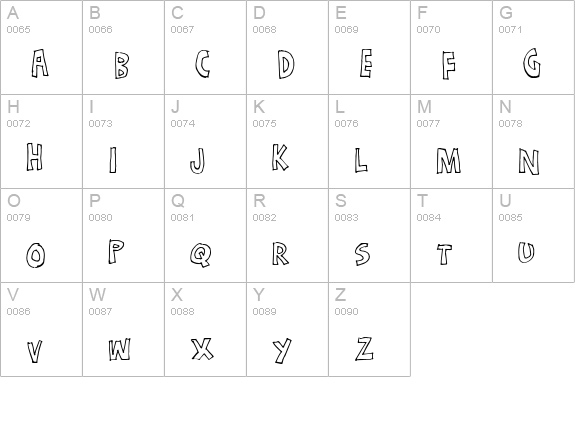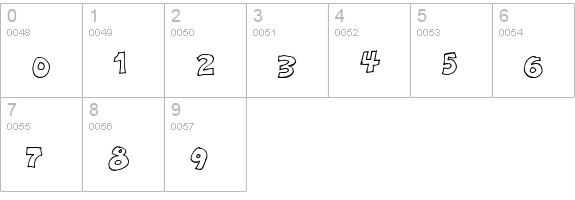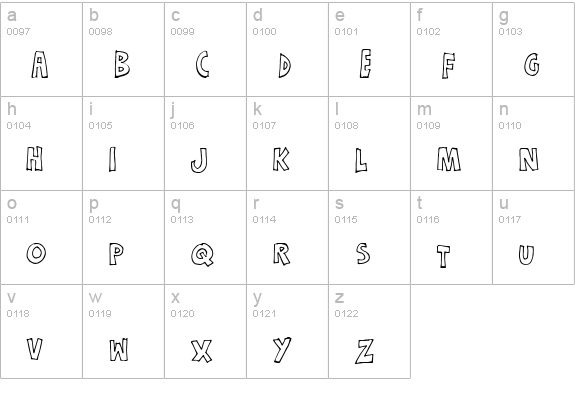
Just a dream Hollow Font Details
Just a dream Hollow font is a stunning typeface that exudes a sense of whimsy and fantasy. With its delicate and intricate hollow design, this font is perfect for adding a touch of magic to your projects. Whether you're creating invitations, posters, or branding materials, Just a dream Hollow font will surely make your text stand out. What's even better is that Just a dream Hollow font is completely free to download at FontsMarket.com! This means you can easily access this enchanting font and use it in your designs without any cost. Don't miss out on the opportunity to elevate your creative projects with the ethereal beauty of Just a dream Hollow font. Download it now and let your imagination soar!